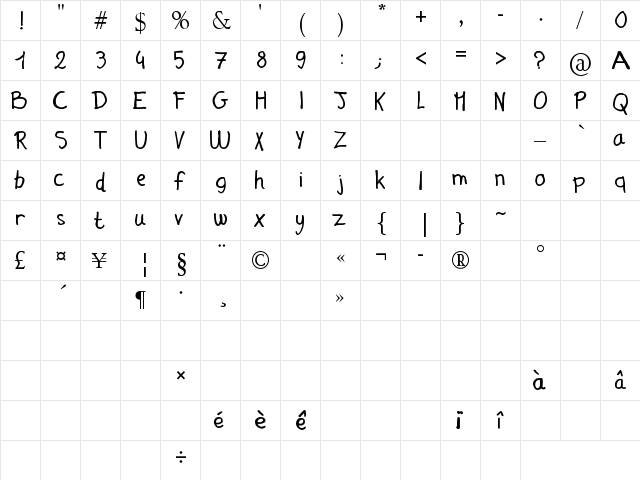
Gilles'comic handwriting Regular Font Preview
Gilles'comic handwriting Regular
Gilles'comic handwriting Regular Font Details
Design Context for Gilles'comic handwriting Typeface
Gilles'comic handwriting has an approachable, lighthearted character — its loose, expressive forms are well-suited to children's content, casual branding, and fun-first design.
Font Pairing: Pairs well with a rounded or humanist sans for body copy, maintaining the friendly tone without relying on Gilles'comic handwriting to carry extended reading.
Pro Tip: Avoid using Gilles'comic handwriting for long passages of text — it works best for headlines, labels, and short calls to action.